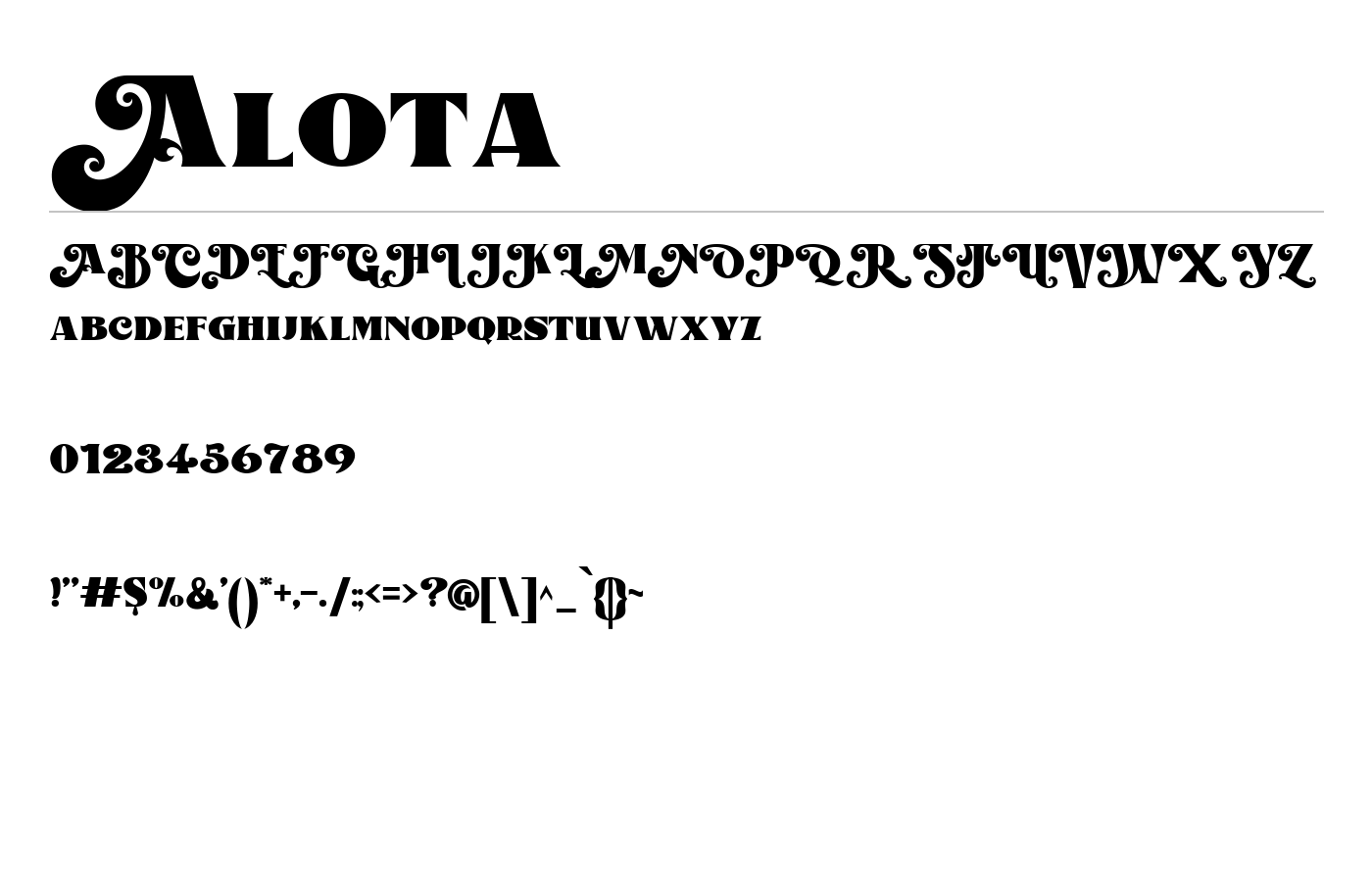
Alota is a bold serif font with a strong, vintage character, featuring high contrast between thick and thin strokes and elegant, stylized curls that add a playful yet sophisticated flair. Its dramatic serifs and unique letterforms make it ideal for eye-catching headlines, logos, and branding that require a blend of classic charm and artistic personality. This font works best in creative design projects where a distinctive and memorable look is desired.
Alota Font
About Alota Font
| Font family | Alota Font |
| Designer | Eric Kurniawan |
| Trademark | Burntilldead - Illustrator and Typefoundry |